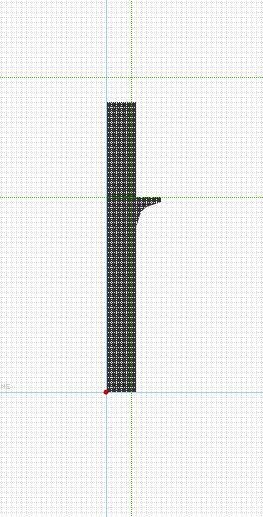
• Chiara is a decorative font evolved from Chiara regular, with lots of embellishments in ascenders and descenders, Higher caps, chopped-of letters and so on. Thanks to the wonderful/incredible/amazing set of bricks you can find here (http://fontstruct.com/fontstructions/show/all_composites_saved_in_my_bricks) I could develop a hord of curvy stuff that was incredibly useful. (djnippa, I love you. Really. XD) This is still a work in progress, I'm redefinig some characters, and I want to add a new set of alternates to make this more versatile. Feel free to comment whatever you like/dislike.
That damn lowercase k is gonna KILL ME!!! Agh.
Maybe put the k down like this? k
OK.... I'll try again. Thank u so much Opipik! =)
much better. I'll be working on that accents.
If you use this tool, you might find the angles you are looking for.
I didn't see the 'k' before, so I guess you have used djnippa's tool to find a good angle - also for the 'v'.
This design now has an elegant appearance and a lovely balance. 10/10
The only thing I would change might be the cross bars of the 'f' and 't', which I would bring down to the x-height. I would also reduce the height of the 't' a little ...
Fiuuu... Thanks a lot Djnippa, I saw this before, but I lost the link, and now that i have it I conform is AWESOME!!! (jiggles)
And as always, p2p, thank u for your kindness and support. I'll change that crossbar.
Ok, people, since I've gone crazy with this font after I discovered the new bricks, I'll upload it again as it was before, in regular version, whith uppercase, accents and numerals, while I keep working on this thing. Thank you all for your useful comments. =)
Looks like "Greaf for logos". t looks like an f.
You're right, mimidonut. That's what p2pnut said earlier. I had this samples already done, so I published them. But I'm re-doing a lot of characters right now. Thanks
Great font and samples. ß could have flourishes, and look more like "fs". There's also a stray brick on A and its variants.
Beautiful!
Yautja: Excellent suggestion for sharp S. I'll fix that stray bricks and then redesign it. =)
Eszet and A have been fixed. T has been improved, but I think it needs a little more work. Thanks everyone for all the support on this proyect. =)
Beautiful work, compañero! BTW, I'm with Yautja about the ß: in german, it's like a double s (ss): a mix of an old "s" style and the new "s" style. Here you are a sample of this evolution.
The "eszett" ligature seems to have been created during the 19th century. The 'f' looking letter was what we call the long 's' = ſ (unicode 0x017F). In modern German writing (hand, print) this has been replaced by the 's' we are familiar with.
Sometime in the 19th century the long 's' was combined with the 'z' that had a cedilla (ȥ as seen in printed Fraktur fonts, unicode 0x0225). It created a sharp sounding 's'. Looking at the development in elmoyenique's image, this explains why the 's' in example 3 looks like it has the upper curve turned to resemble a '3': the 'z' was written with a curved (maybe linked to the cedilla?) tail below the base line, which for some reason then slid upwards except for the descender of the long 's' (this descender continues in handwritten ß ).
A hint to that can be seen in the Kurrent-based font invented in 1911 by Ludwig Sütterlin, who added a curved 's' to be used at the end of words.
(should I have made an error here I hope that beate or other linguistically/typograghically more educated members will correct me)
Comment by Aeolien 25th august 2013
You haven't. And this is pretty helpful =)
I always thaught the only way of doing a proper eszet was the f+3 method, cause that's how I've seen it written here in spain in restaurants and hotels. But I've discovered lately in web forums and such fonts that have a much more similar eszet to the second, or even the third in elyemonique sample
I've been looking on the net for some kind of "type construction guide" or something like that, 'cause my knowledge about special signs (diacritics,eth,thorn,eszet, etc...) Is just lame. But I haven't found anything specifically made for type designers, nor much information about the history of this spetial characters, apart from Wikipedia, so if someone knows a good resource on this topic, I'll be really grateful.